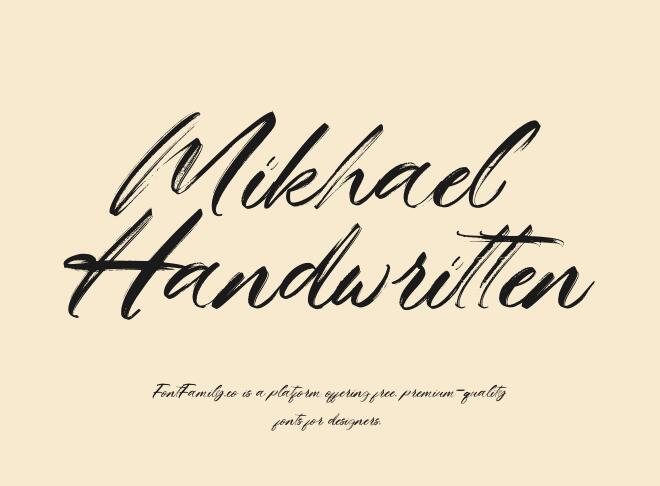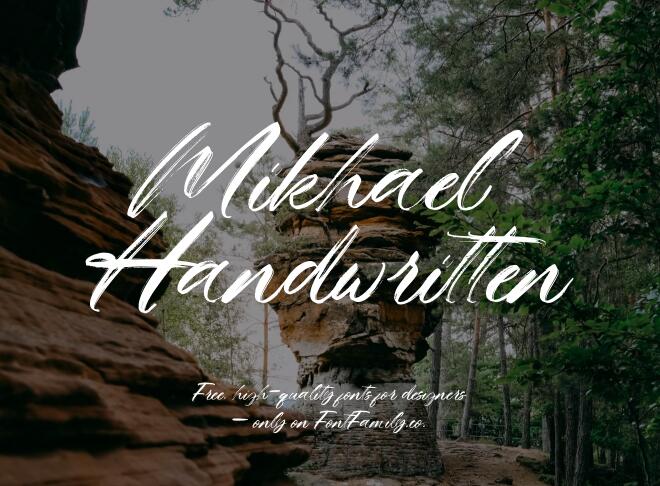
Mikhael Handwritten Font
Mikhael Handwritten Font is a captivating and unique font that perfectly combines the charm of handwritten scripts with a playful flair. It's an excellent choice for designers aiming to inject a touch of personality and warmth into their projects. Whether you're creating greeting cards, invitations, social media graphics, or branding materials, this font is versatile enough to fit any design context. Compared to other handwritten fonts, Mikhael stands out with its natural, flowing letterforms that mimic human handwriting. Its playful undertones make it a great alternative to more formal script fonts. The font is free for personal use, making it a fantastic choice for hobbyists and professional designers alike who are looking for a cost-effective way to elevate their designs.